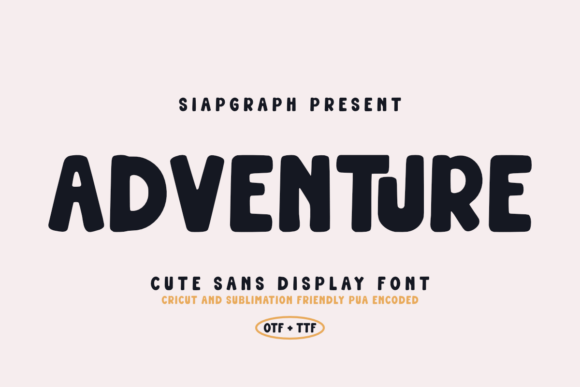
Get Ready for a Design Adventure
You know that feeling when you’re brainstorming a new project and suddenly, the perfect font pops into your head? It’s like the missing piece of a puzzle, and everything starts to fall into place. For many designers, that moment is a game-changer. It’s what inspires us to create something truly special, something that captures the essence of our vision.
For those who crave that spark of creativity, we’re excited to introduce the Adventure Font – a playful, sans display font designed to add personality and warmth to your designs. This versatile font is perfect for Print On Demand sellers, Etsy shop owners, and sublimation designers who need a font that’s both eye-catching and easy to work with.
Key Features of Adventure Font
- Unique Characteristics: Adventure Font features a distinctive, hand-drawn style with bold lines and playful flourishes, adding a sense of excitement and adventure to any design.
Adventure Font Review
As a designer, I was excited to dive into the “Adventure Font” and see what it had to offer. Overall, I found it to be a unique and eye-catching option for anyone looking to add a sense of excitement to their project.
Here are some things that I think work well with the “Adventure Font”:
- ✨ Dynamic letterforms: The font’s bold and playful style makes it perfect for headings and titles.
- ✨ Customizable: The font comes in a range of weights and styles, allowing you to tailor it to your specific project needs.
- ✨ Versatile: The font works well in both digital and print applications, making it a great option for a wide range of projects.
- ⚠️ Limited legibility: At smaller font sizes, the font can become difficult to read, especially for those with visual impairments.
- ⚠️ Limited language support: The font only includes support for a limited number of languages, which may be a concern for projects that require multilingual support.
Overall, I think the “Adventure Font” is a great option for designers looking to add some excitement to their projects. While it has some limitations, its unique style and customizable options make it a great choice for the right project.
Getting the Most Out of Adventure Font
Some tips for getting the most out of Adventure Font include:
– Experimenting with different font sizes and styles to create visual interest.
– Using the font to highlight important information or create a sense of hierarchy.
– Combining Adventure Font with other fonts to create a unique visual identity.
Adventure Font is commonly used for:
– Travel and adventure-themed projects.
– Outdoor and nature-inspired designs.
– Creating a sense of excitement and energy in your design.
Alternative Fonts for Adventure Font
Playfair Display is a luxurious, elegant serif font suitable for high-end branding and advertising. It is ideal for creating a sense of sophistication and refinement. Compared to Adventure Font, Playfair Display is more formal and less playful, making it a better choice for corporate or high-end projects.
Great Vibes is a modern, elegant script font that conveys a sense of sophistication and elegance. It is suitable for use in branding, advertising, and editorial design. Great Vibes is more refined and polished than Adventure Font, making it a better choice for projects that require a high level of sophistication.